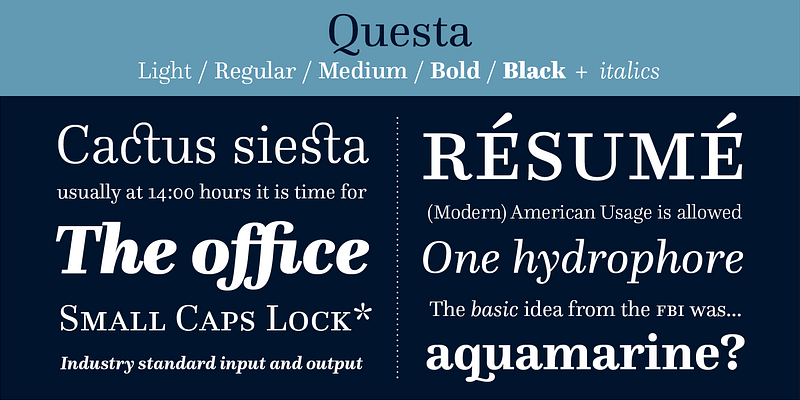
The Questa Project: a true typographic collaboration
The designers of some of the most successful typefaces of the last two decades — Martin Majoor (Scala, Nexus, Comma) and Jos Buivenga (Museo, Calluna, Antona) — teamed up to collaborate on one of the most exciting undertakings of 2014: The Questa Project.
The extensive Questa family consists of Questa Serif, Questa Sans, Questa Slab, and Questa Grande, all in five weights and in both roman and italic. The inclusion of small caps, ligatures, four sets of figures, and extended language support makes Questa a true workhorse typeface.
Questa was selected among the 50 most noteworthy font releases of 2014 by a panel of experts, and featured in the 365 Type annual, published in collaboration with the Association Typographique Internationale (ATypI).
The Questa Project is a type foundry that was formed in 2010 by Dutch type designers Martin Majoor and Jos Buivenga. Their collaboration on a family of typefaces – which they called Questa – was the immediate reason to form the foundry. The superfamily contains a serif, a sans and a slab, as well as a display version.